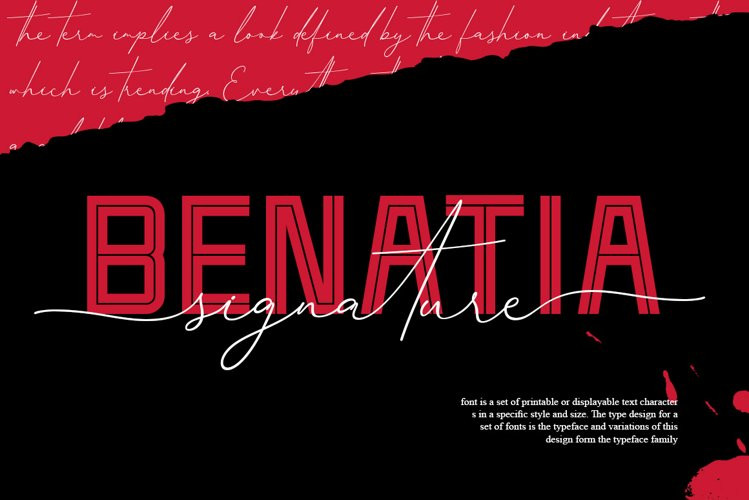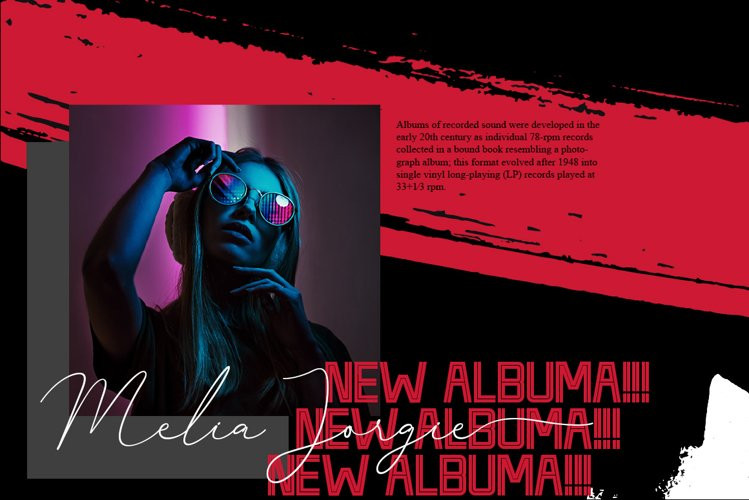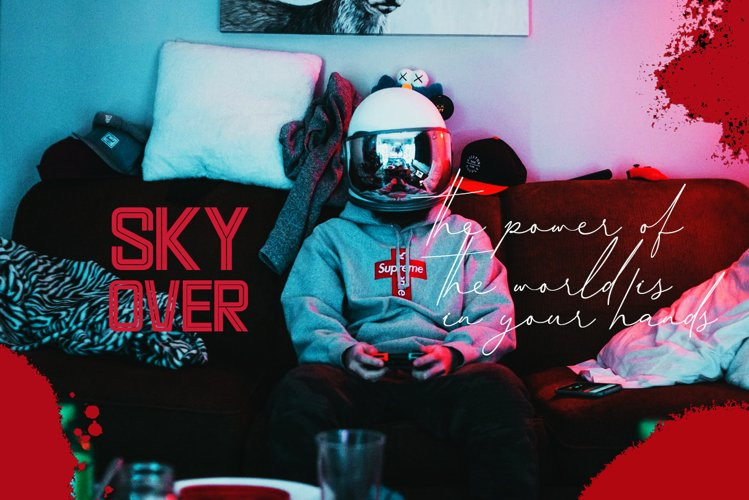
Benatia Font
Benatia FontBenatia is a classy and contemporary pair of fonts, stylish and perfect for a variety of designs. This pair of signature and decorative fonts is a great way to add typographical harmony to your most special graphic design projects. Add this beautiful freebie to your creations and take your designs to the next level!